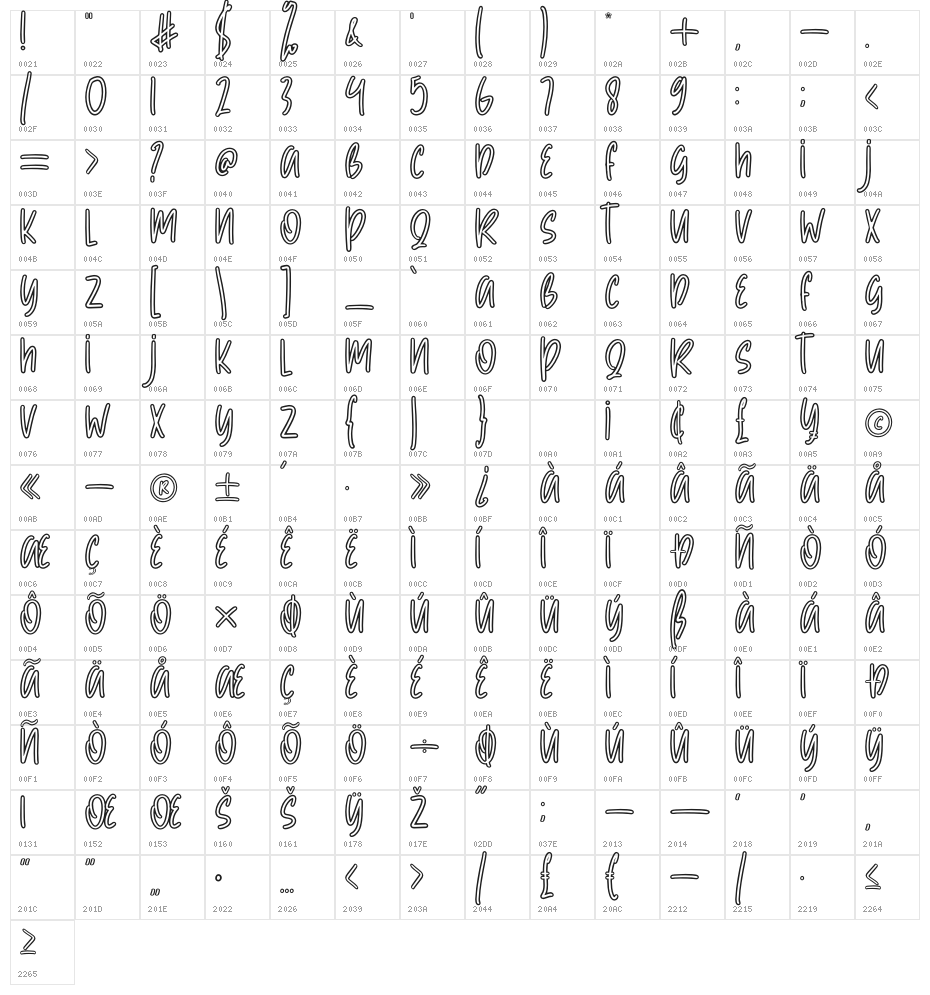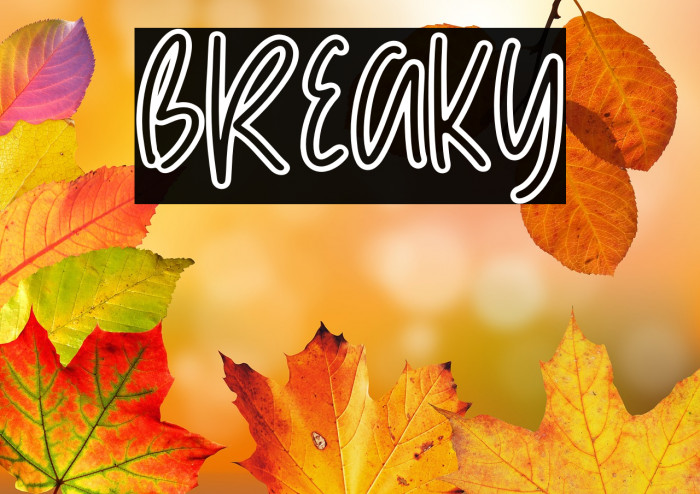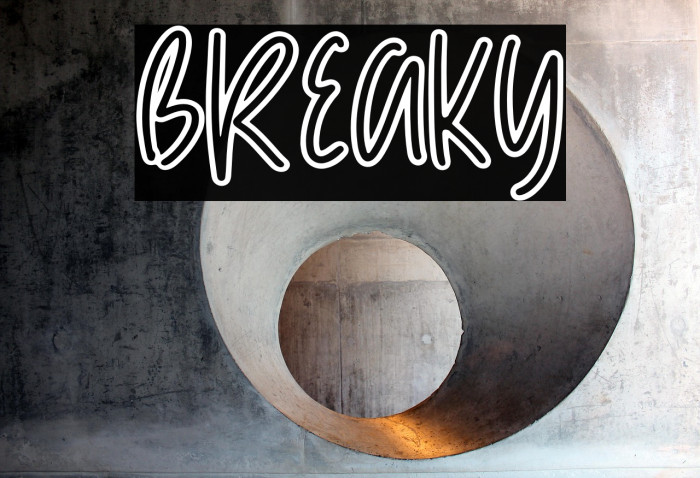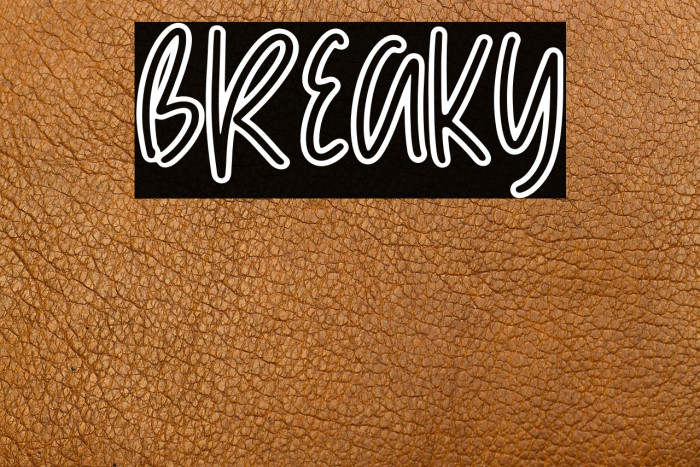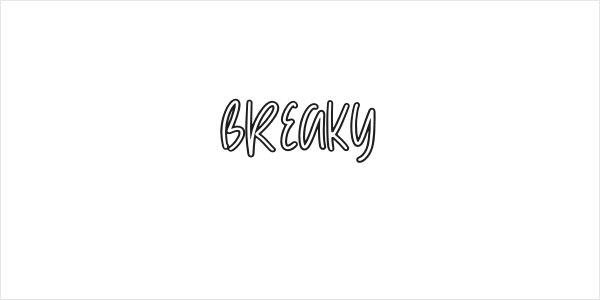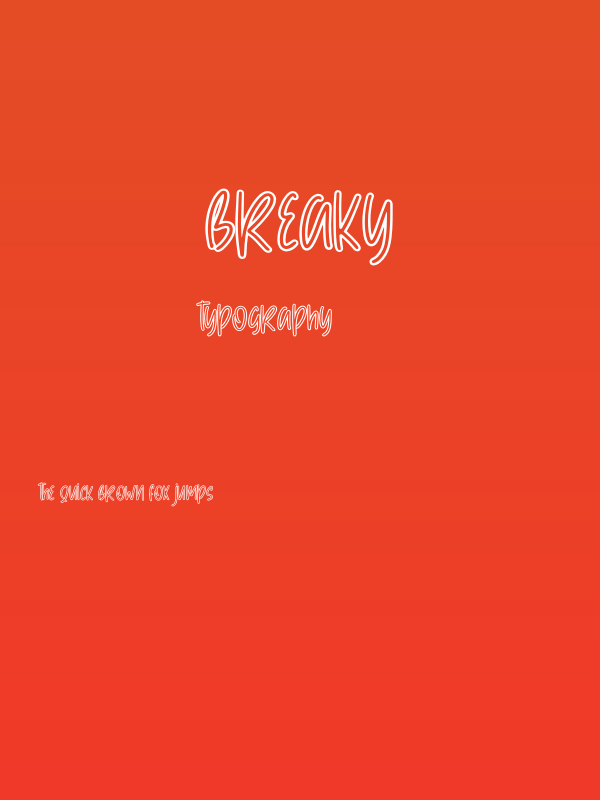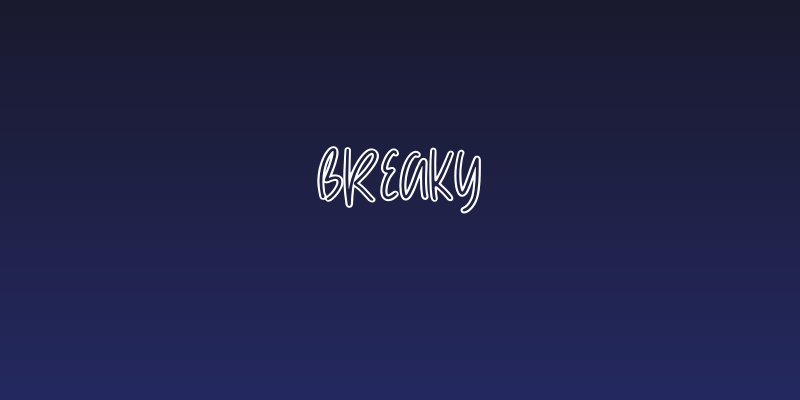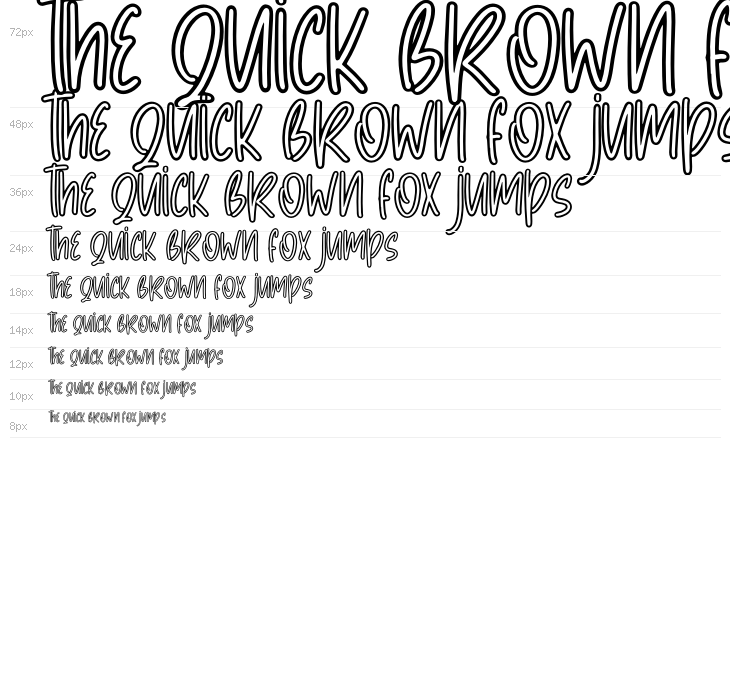
Breaky Font
Breaky Description
This playful and energetic font features a hand-drawn, casual style with a bold outline that gives it a unique, eye-catching appearance. The letters are slightly irregular, adding to the whimsical and informal feel. The uppercase and lowercase characters maintain a consistent style, with rounded edges and a flowing, connected look. Numbers and special characters follow the same design, ensuring a cohesive appearance across all text. The font's boldness and distinct outline make it stand out, perfect for projects that require a fun and approachable aesthetic.
| Proposed Projects | Ideal for children's books, playful branding, greeting cards, and creative posters. |